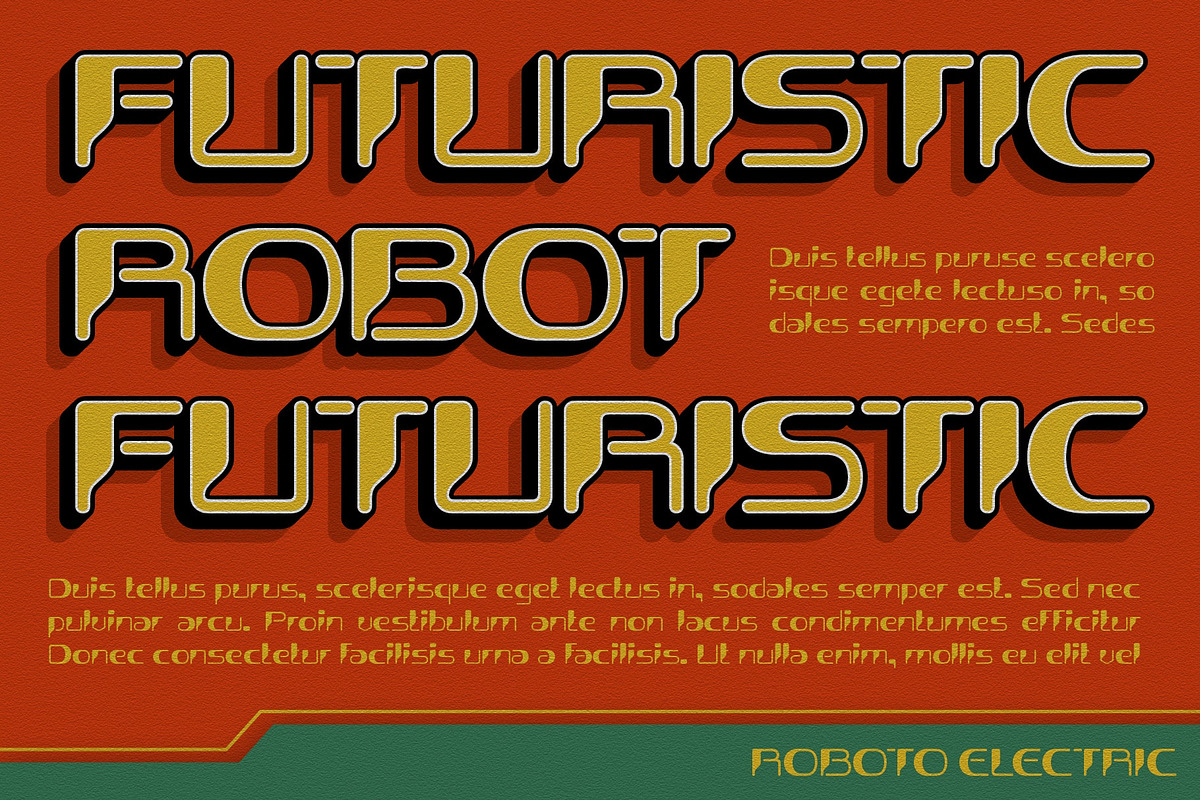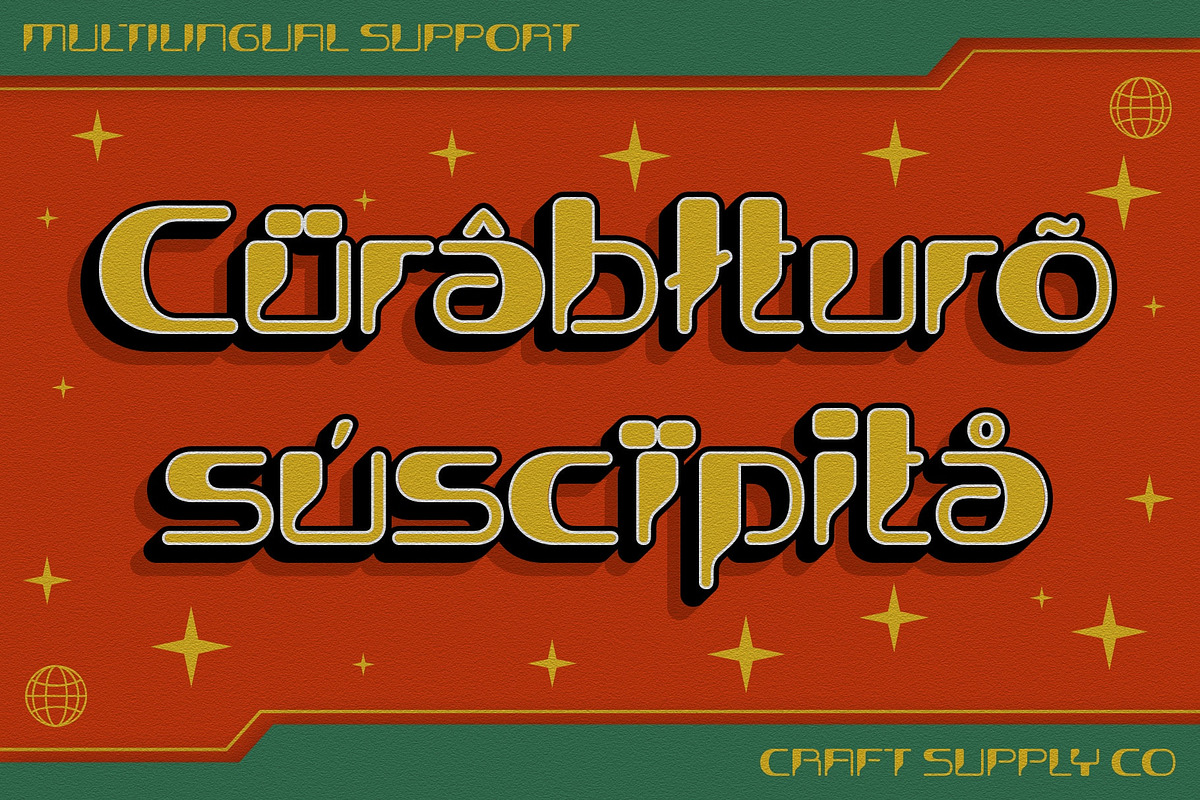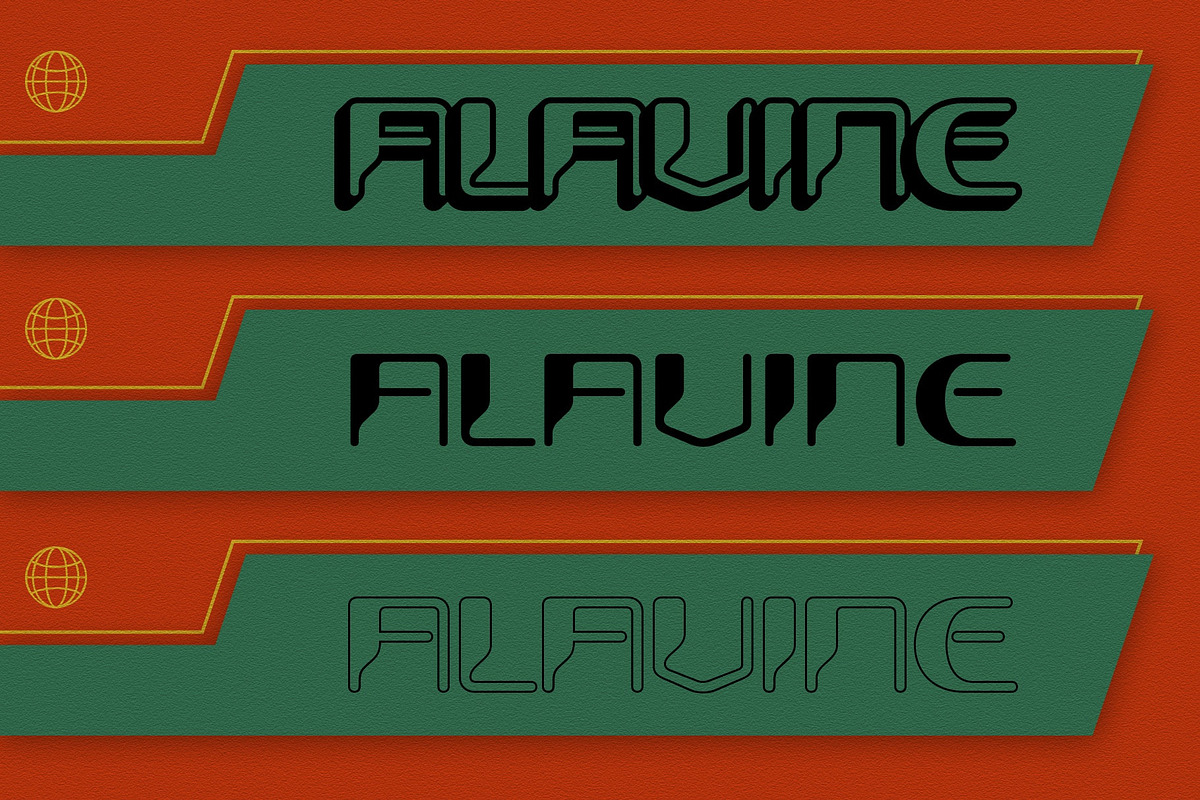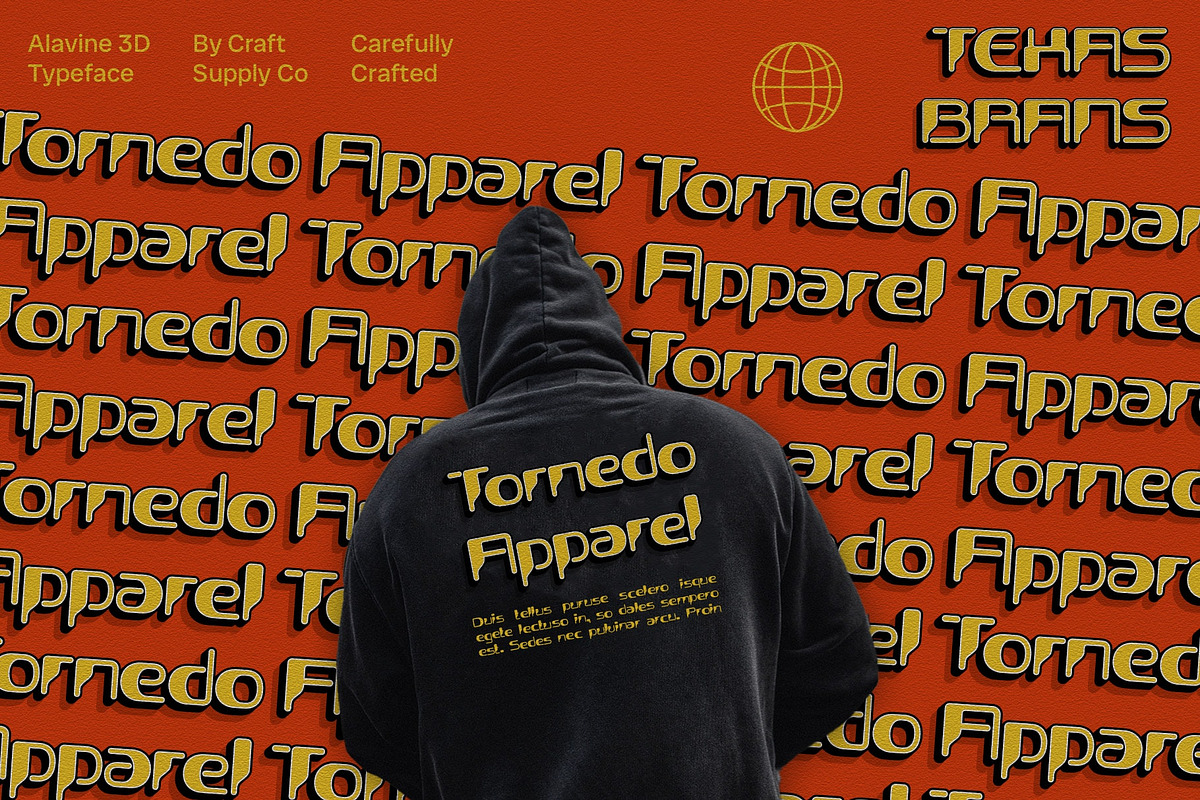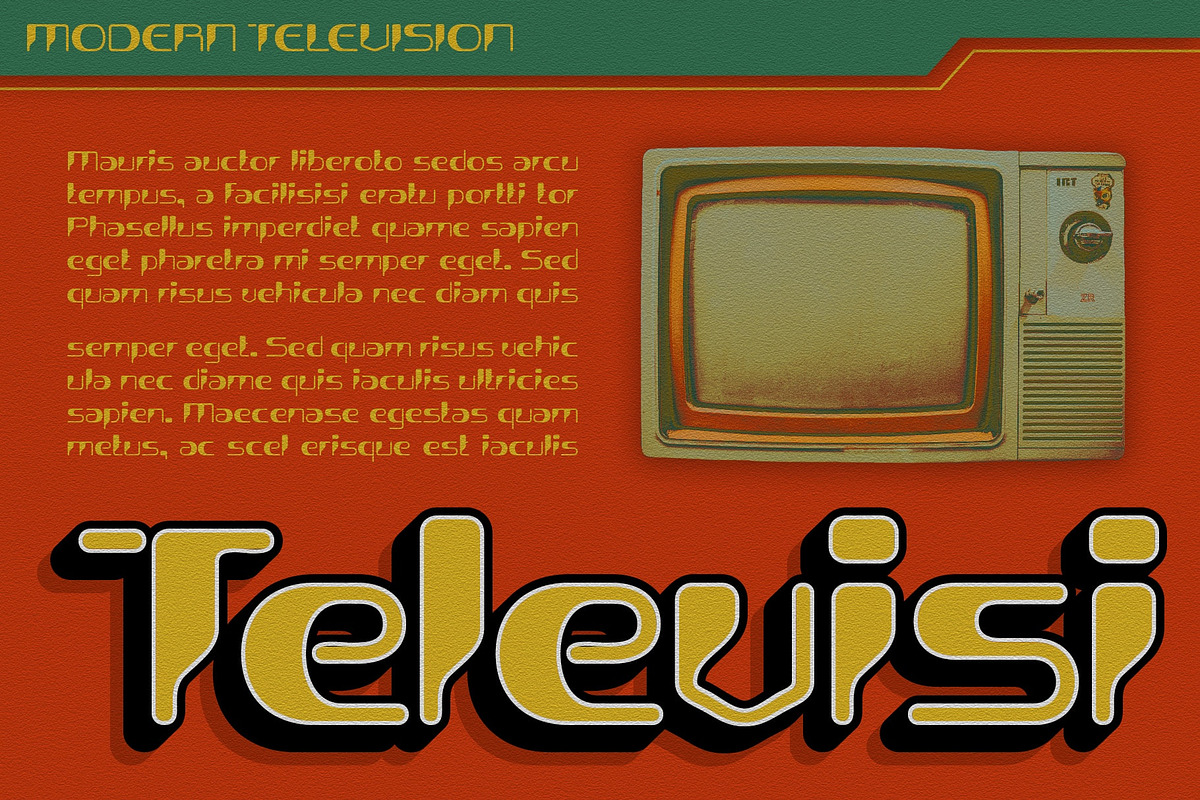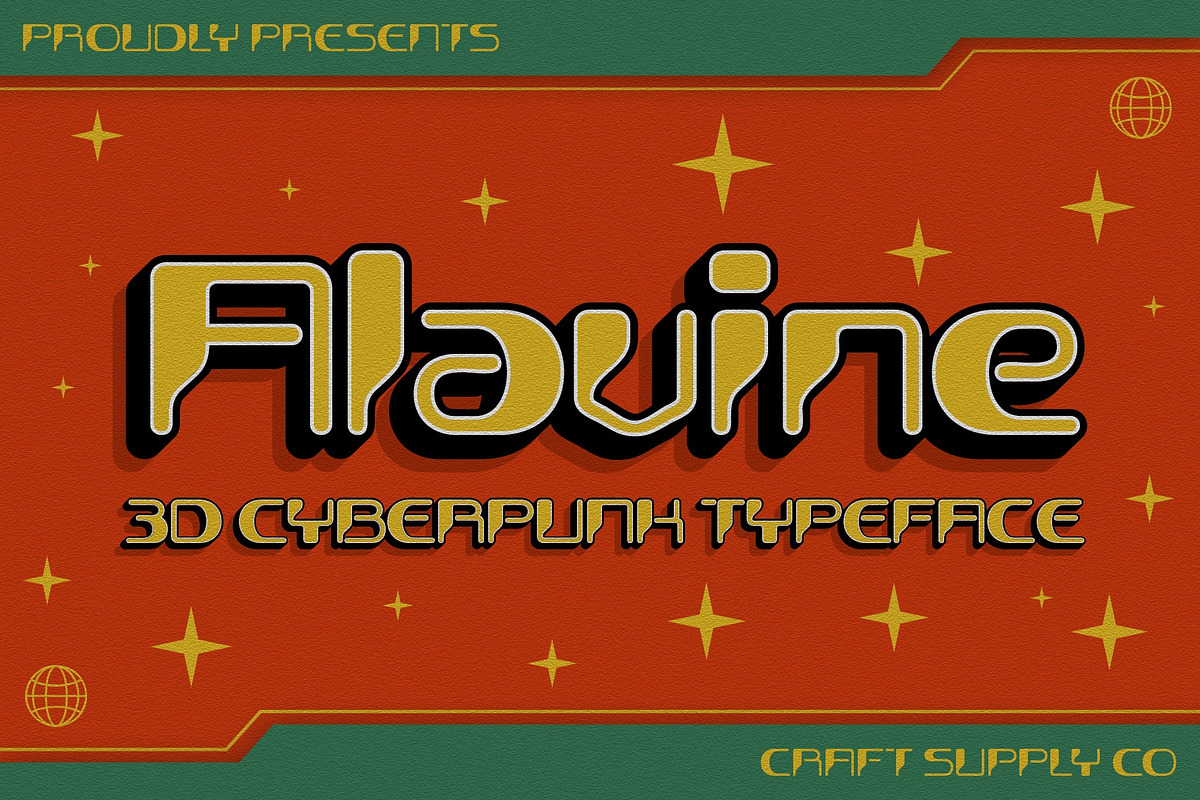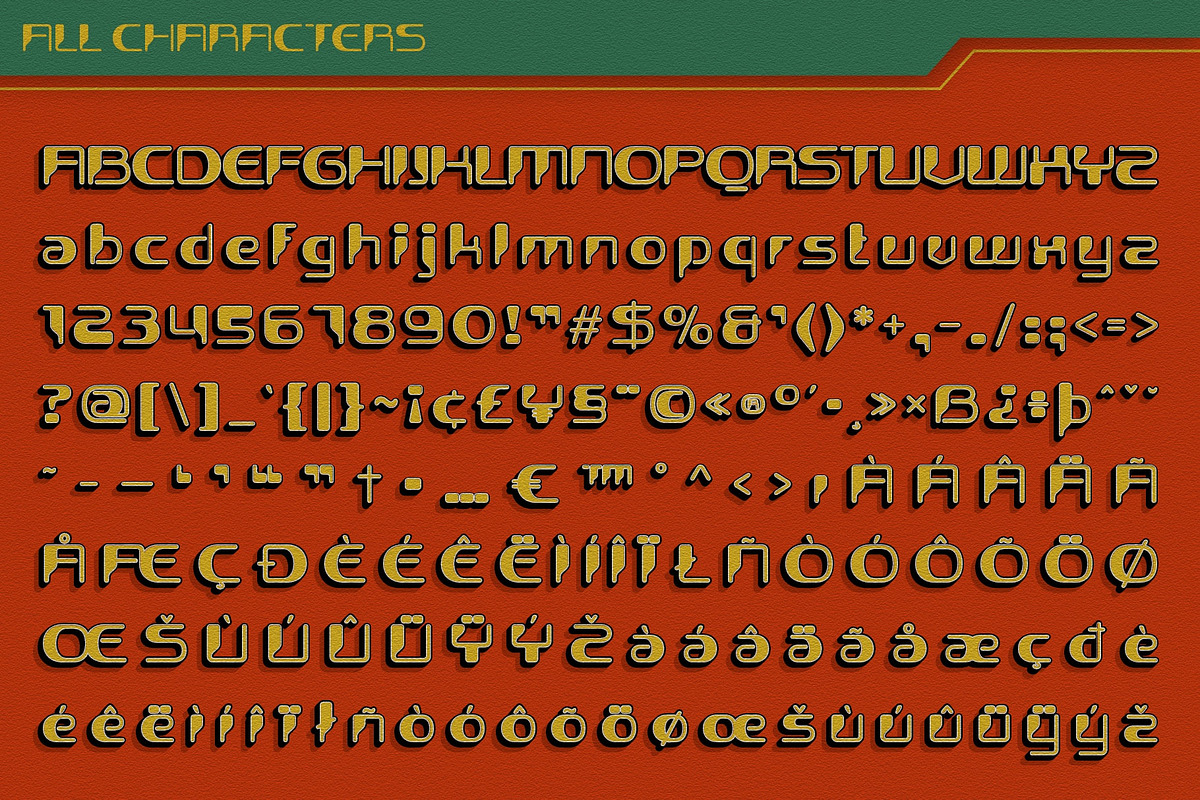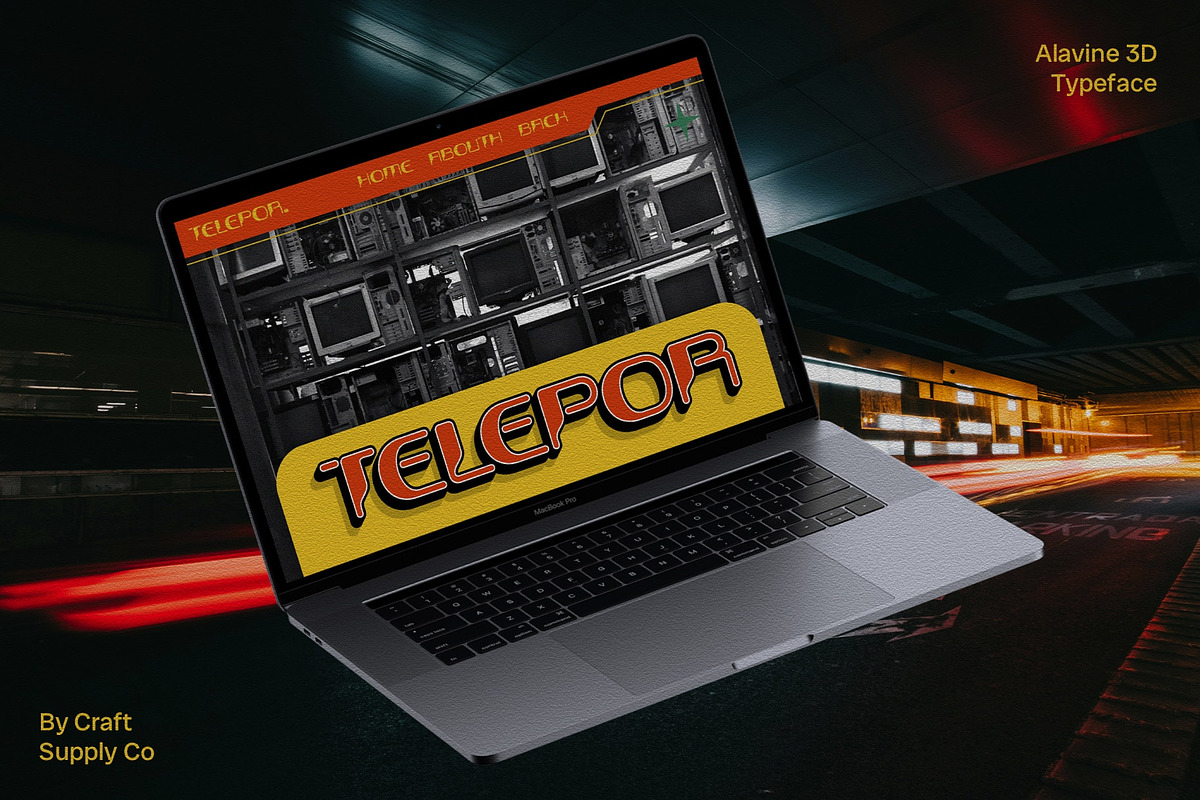
Alavine 3D
Alavine 3D – Futuristic Display Font: Where Innovation Takes Shape
Display Font with Futuristic Shape
Alavine 3D is a display font featuring clean lines, sharp angles, and innovative elements that reflect future aesthetics. Its unique design elements make it a standout choice for modern and cutting-edge projects.
Enhanced with a 3D Effect
The 3D effect in Alavine 3D adds dimension and depth, providing a dynamic and eye-catching look. This effect enhances the font’s overall appearance, making it more captivating and engaging for viewers.
Ideal for Innovative Projects
Perfect for tech posters, futuristic branding, and digital designs, Alavine 3D emphasizes innovation and modernity. Its futuristic shape and 3D effect work together to create a visually striking and memorable impression.
Excellent Readability Across Various Media
Alavine 3D ensures excellent readability across various sizes and media, making it a versatile choice for a wide range of design applications. Whether you’re working on large-scale posters or detailed digital designs, this font delivers clarity and impact.
- Alavine Regular
- Alavine Outline
- Alavine Extrude Right
- Alavine Extrude Left